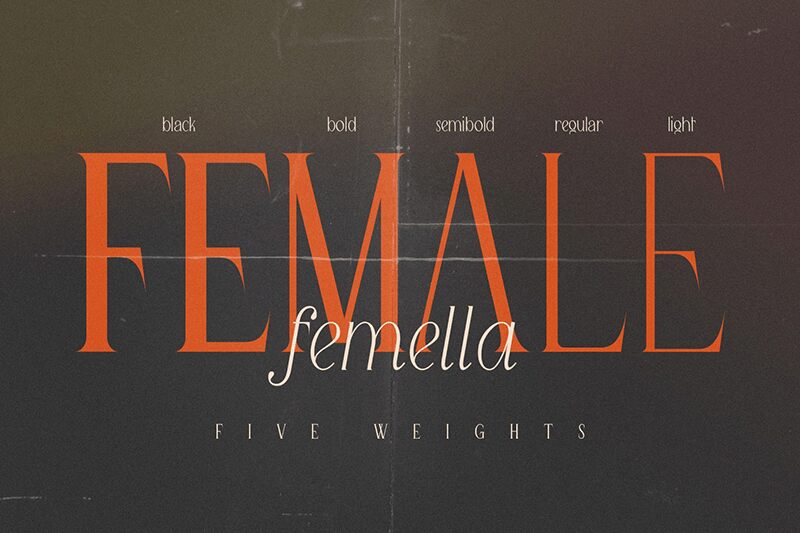
Queen Serif font, crafted by FactoryType, marries elegance with modernity in a delightful serif style. This light, condensed font is perfect for adding a touch of sophistication to any project. With its graceful lines and hint of vintage charm, Queen Serif stands out as an exquisite choice for those seeking both style and functionality.
Ideal for branding, editorial design, or digital projects seeking a refined edge, this font family offers versatility without compromising on impact. Best of all, it’s available as a free download.
- 5 Weights
- 2 Styles (Regular and Italic)
- Basic Latin A-Z and a-z
- Numerals & Punctuation
- Stylistic Ligatures and Alternate glyps
- Multilingual Support for